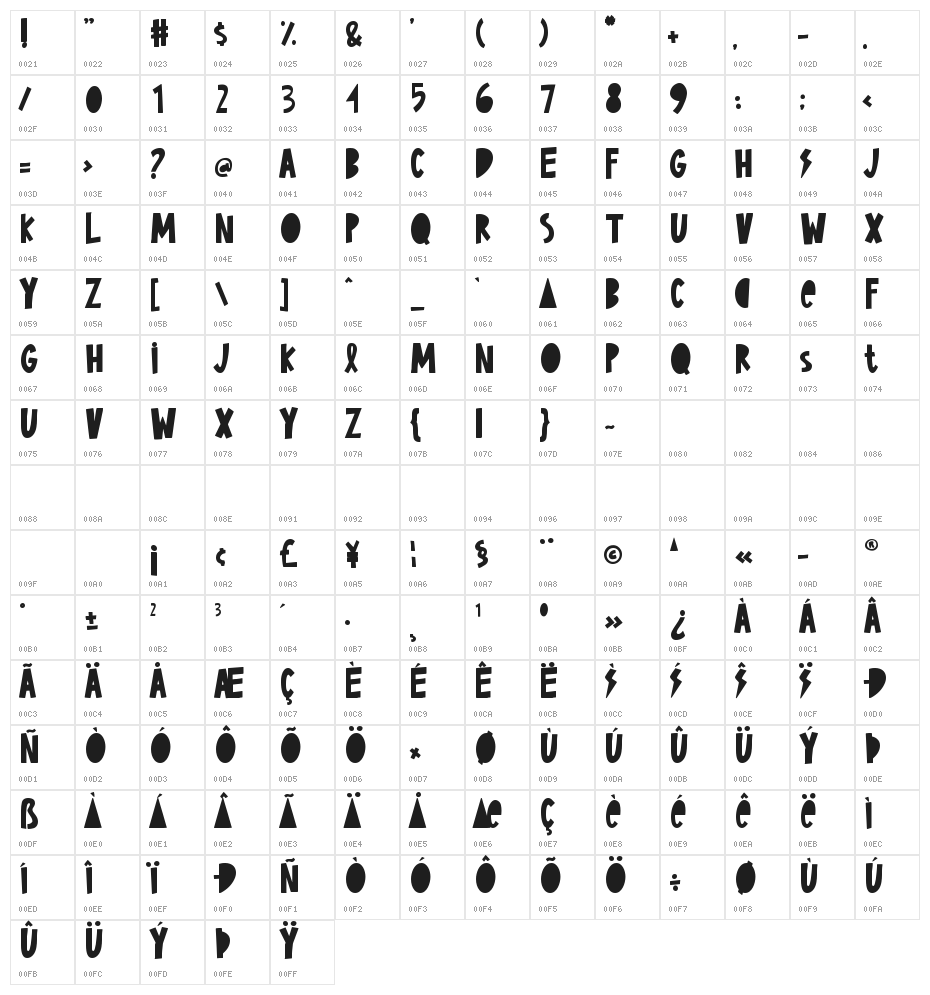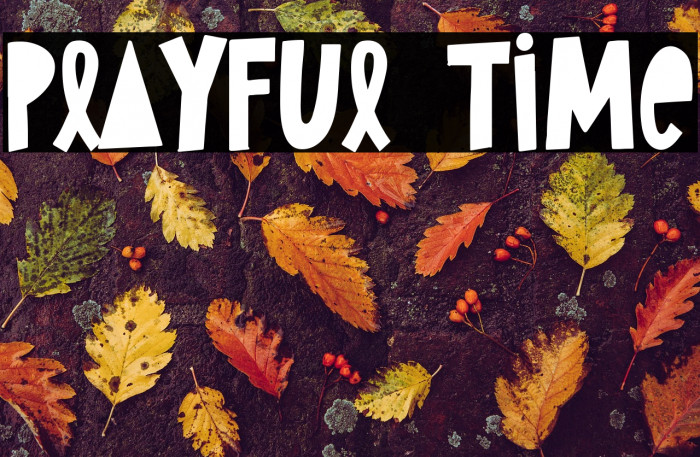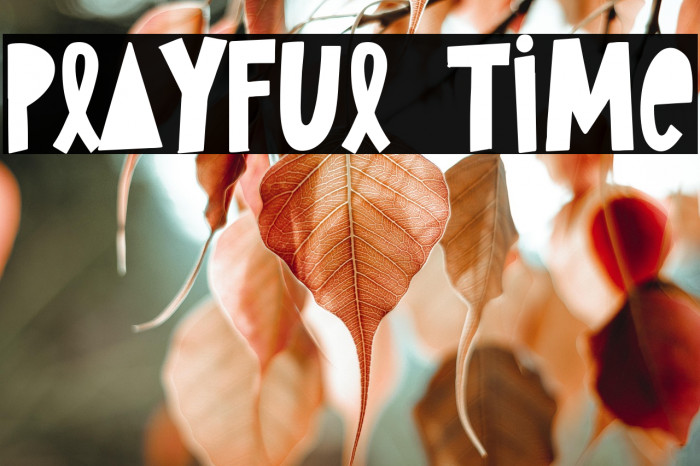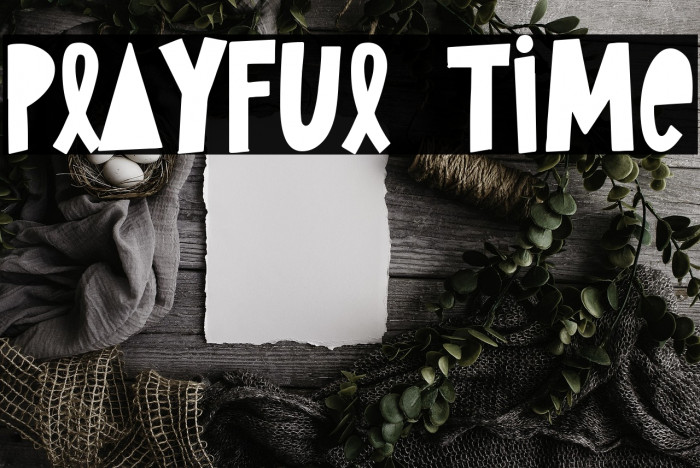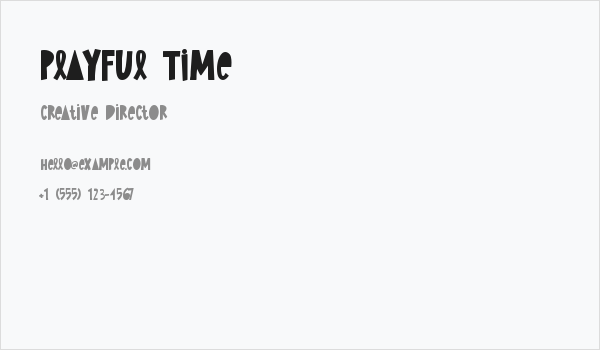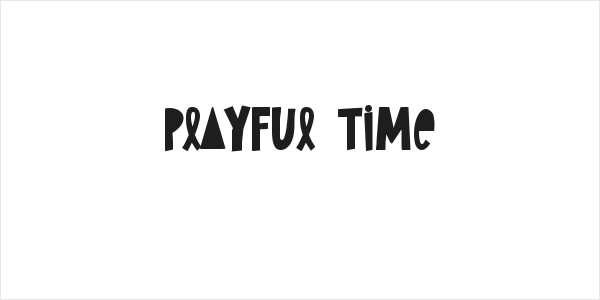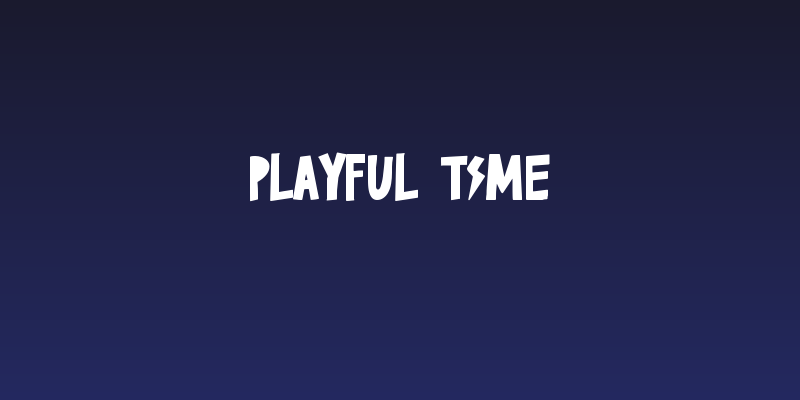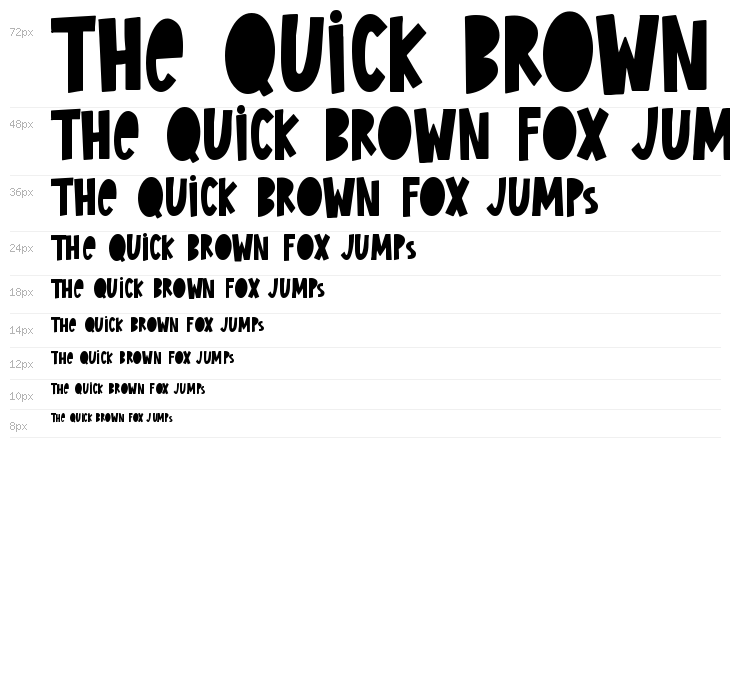
Playful Time Font
Playful Time Description
This font exhibits a playful and dynamic style, characterized by its bold and irregular shapes. The letters are creatively designed with varying angles and exaggerated forms, giving it a whimsical and energetic appearance. The uppercase and lowercase letters maintain a consistent theme of fun and unpredictability, with some characters featuring unique embellishments like lightning bolts and loops. The numbers and special characters follow the same lively design, making the font suitable for projects that require a sense of humor and creativity. Its boldness ensures high visibility, making it ideal for eye-catching designs.
| Proposed Projects | Perfect for children's books, playful branding, party invitations, and creative posters. |